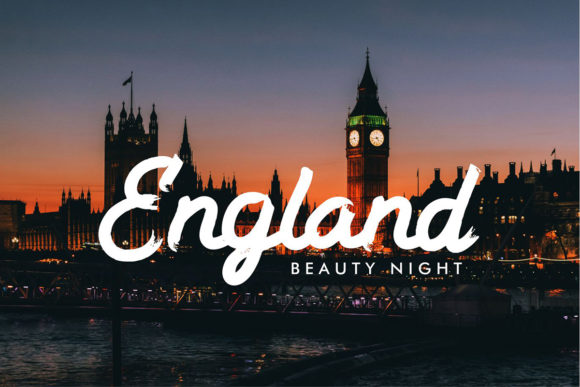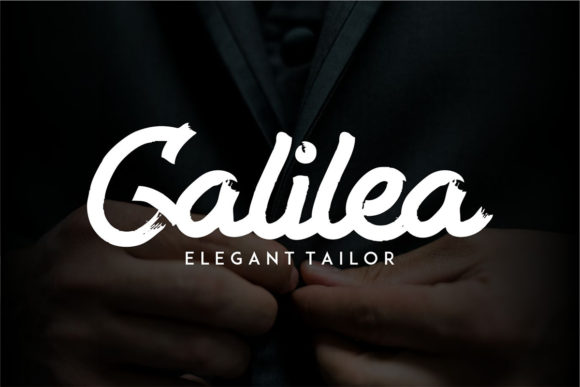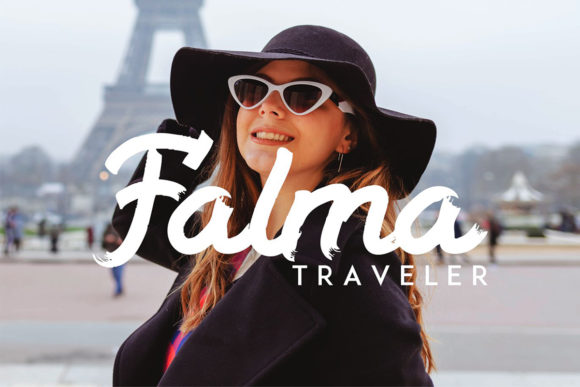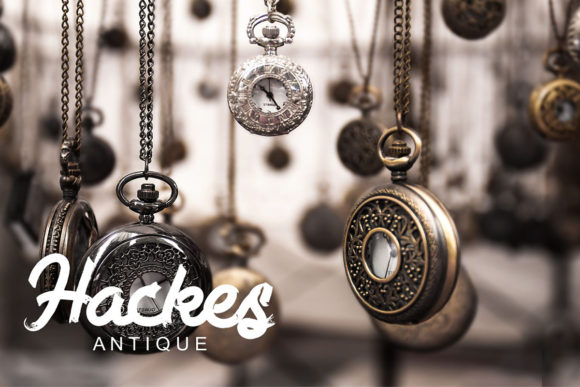
Introducing Alkilri Font: The Ultimate Choice for Bold and Unique Designs
Are you tired of using the same old fonts in your design projects? Do you want to add a touch of personality and whimsy to your creations? Look no further than Alkilri Font, a fun and bold handwritten font that’s sure to turn heads. With its unique style and contemporary charm, Alkilri is the perfect choice for designers and crafters looking to make a statement.
What Makes Alkilri Font So Special?
Alkilri Font is a one-of-a-kind handwritten font that’s been carefully crafted to bring a sense of playfulness and sophistication to your designs. Its bold and chunky letters are perfect for making a statement, while its unique style ensures that your designs will stand out from the crowd. Whether you’re working on a logo, a poster, or a digital project, Alkilri Font is sure to add a touch of personality and flair.
The Benefits of Using Alkilri Font
So why choose Alkilri Font for your next design project? Here are just a few benefits of using this amazing font:
- Unique Style: Alkilri Font has a truly unique style that’s unlike anything else out there. Its bold and chunky letters are sure to grab attention and make your designs stand out.
- Contemporary Charm: Alkilri Font has a contemporary charm that’s perfect for designers who want to create modern and stylish designs.
- Versatility: Alkilri Font is incredibly versatile, making it perfect for a wide range of design projects, from logos and posters to digital projects and more.
- Easy to Read: Despite its bold and chunky style, Alkilri Font is surprisingly easy to read, making it perfect for designs where you need to communicate a message clearly.
How to Use Alkilri Font in Your Designs
Using Alkilri Font in your designs is easy. Here are a few tips to get you started:
- Pair it with Other Fonts: Alkilri Font looks great when paired with other fonts, such as sans-serif fonts or script fonts. Experiment with different combinations to find the one that works best for your design.
- Use it for Headings: Alkilri Font is perfect for headings and titles, where its bold and chunky style can really make an impact.
- Experiment with Colors: Alkilri Font looks great in a wide range of colors, from bold and bright to subtle and pastel. Experiment with different colors to find the one that works best for your design.
Who is Alkilri Font Perfect For?
Alkilri Font is perfect for designers and crafters who want to add a touch of personality and whimsy to their designs. Here are a few examples of who might love Alkilri Font:
- Graphic Designers: Alkilri Font is perfect for graphic designers who want to create bold and eye-catching designs.
- Scrapbookers: Alkilri Font is a great choice for scrapbookers who want to add a personal touch to their pages.
- DIY Enthusiasts: Alkilri Font is perfect for DIY enthusiasts who want to create unique and personalized designs for their home decor projects.
In conclusion, Alkilri Font is a fun and bold handwritten font that’s perfect for designers and crafters who want to add a touch of personality and whimsy to their designs. With its unique style and contemporary charm, Alkilri Font is sure to turn heads and make your designs stand out. So why not give it a try and see the difference it can make in your next design project?